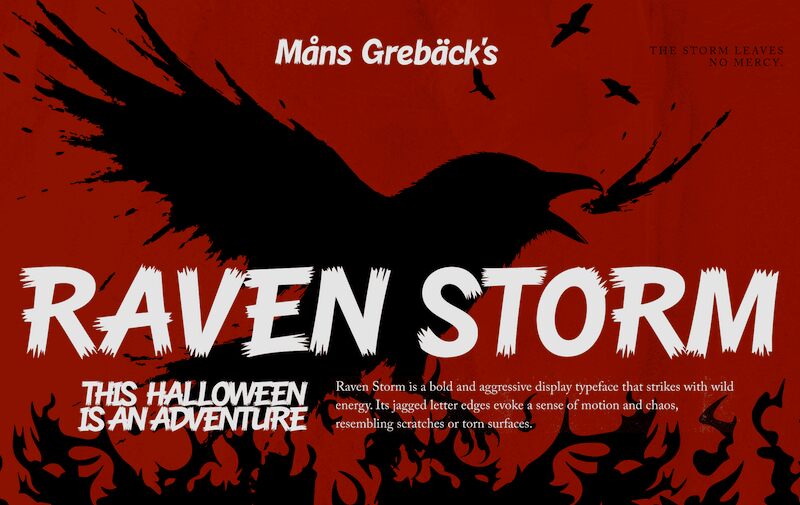
Raven Storm font family by Måns Grebäck consists of 2 font styles that contrast beautifully and together create a piece of art every designer will be happy to use. Both fonts feature aggressive style with jagged rough letters. The handwritten free font is ideal for building impactful typography that demands to be noticed. Letters are quite readable and even suitable for paragraph text. They support many languages, as well as numbers and symbols.
The direct use cases of this font are posters, album covers, and book covers. In addition, you can use it to design remarkable signs, banners, events, or images for social media. And its versatility will help you implement it in app design, website design, and many other digital or print projects. These might include brochures, magazines, prints for t-shirts, and much more.
Raven Storm is a bold and chaotic display typeface defined by its wild streaks of motion and energy. It embodies the untamed force of a tempest, with each letter appearing as if it has been swept through a windstorm, pushing forward with fearless velocity.